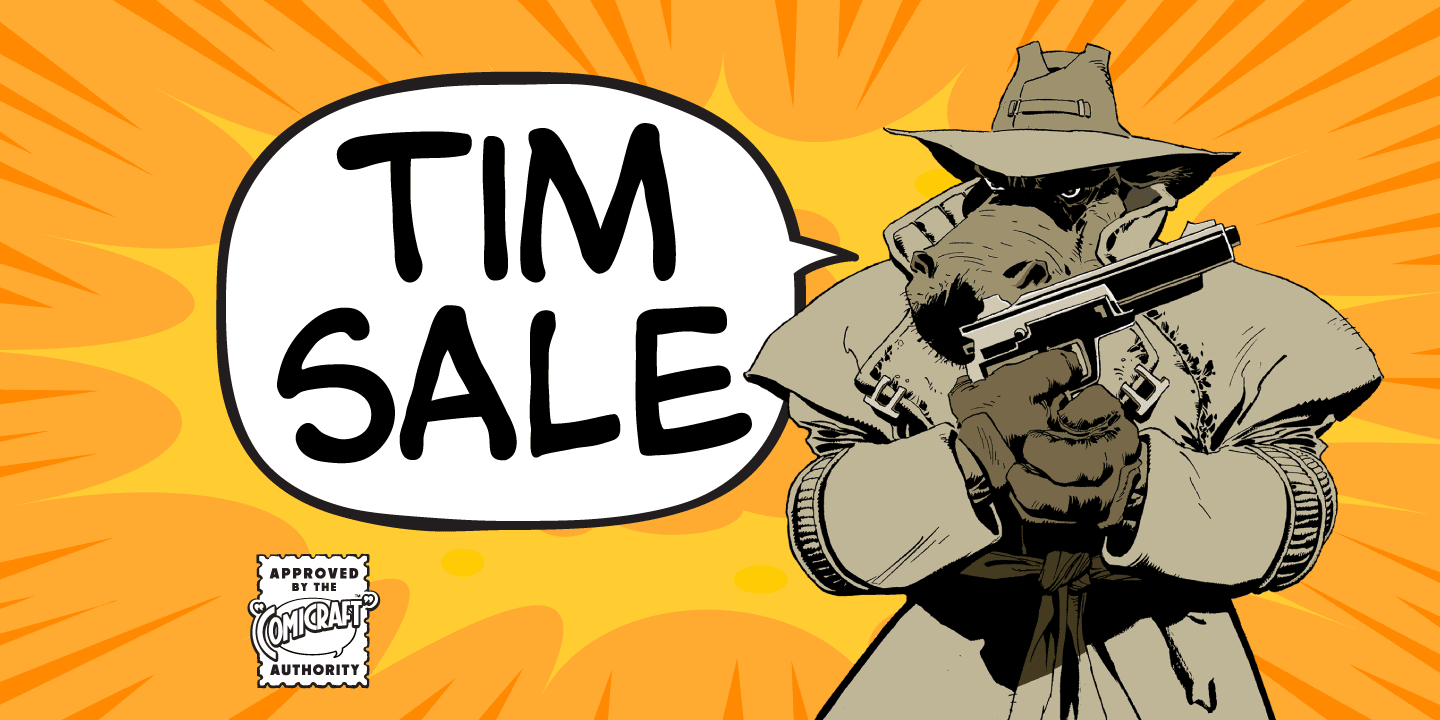
For commercial use, you must purchase this font. You can download it for free for testing purposes. Elevate your design projects with Tim Sale Font Free Download, a distinctive typeface inspired by the iconic style of comic book artist Tim Sale. Known for its bold, hand-drawn aesthetic, this font captures a unique blend of artistic flair and readability, making it perfect for creative projects like posters, comic-style graphics, and branding materials. Its expressive strokes and dynamic character shapes add a touch of personality to any design.
The Tim Sale Font stands out with its rugged yet approachable look, ideal for designers aiming to create visually striking content. Whether you're working on a graphic novel, a themed website, or promotional artwork, this font delivers a professional edge with a creative twist. Its versatility allows it to shine in both digital and print formats, ensuring your projects leave a lasting impression. Tim Sale Font Free Download is a go-to choice for artists and marketers seeking to infuse their work with comic-inspired charm.